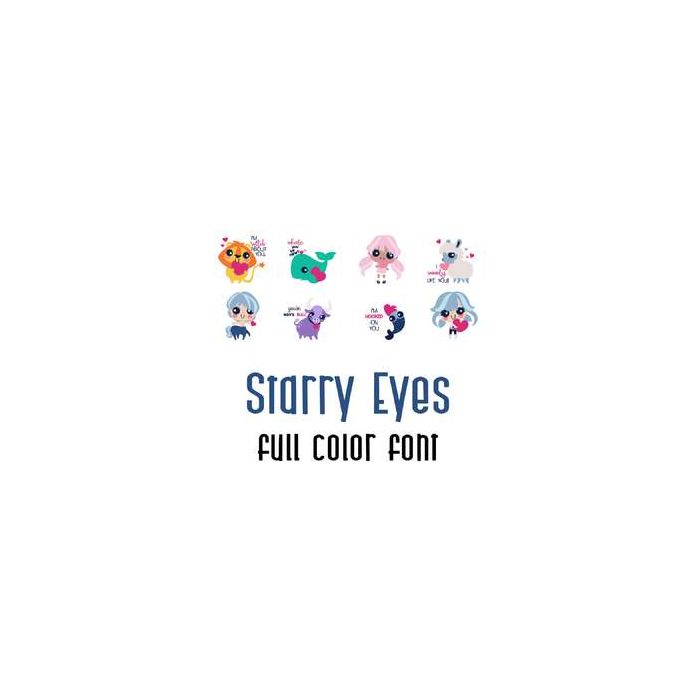
This adorable full color doodlebat font features cute starry eyed animals and imagery with horoscope theme. Perfect for cards, crafts, gifts, decor, scrap book pages, planner stickers and more!